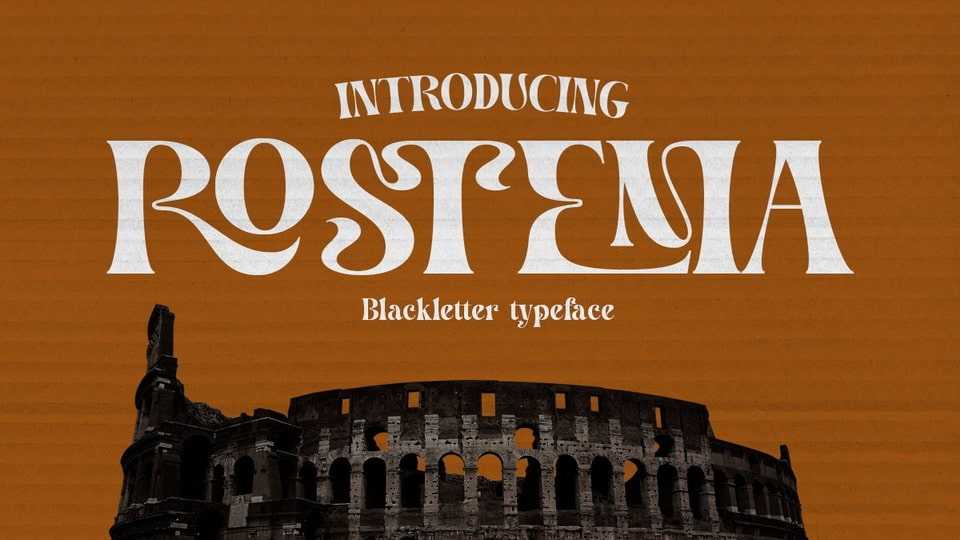
Download Rostema font, a captivating display typeface that seamlessly bridges the gap between tradition and modern design, perfect for a wide range of creative applications.